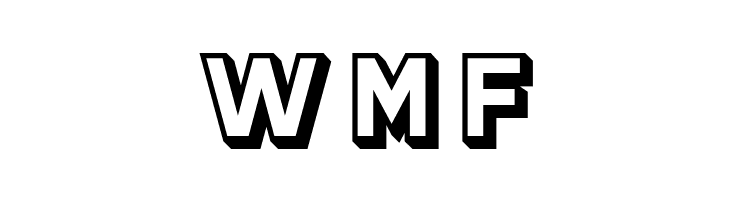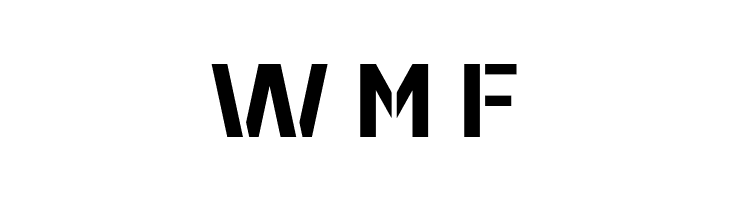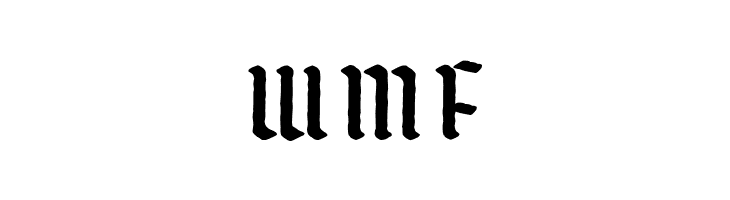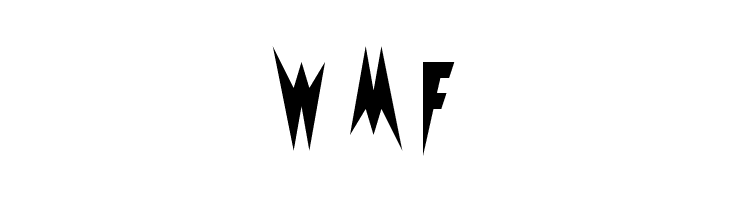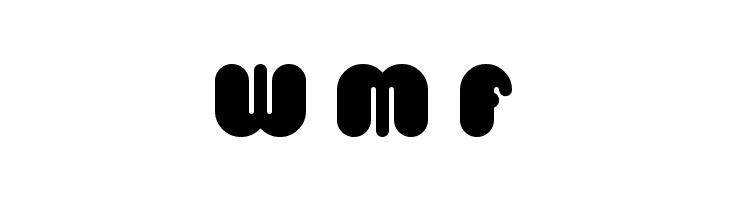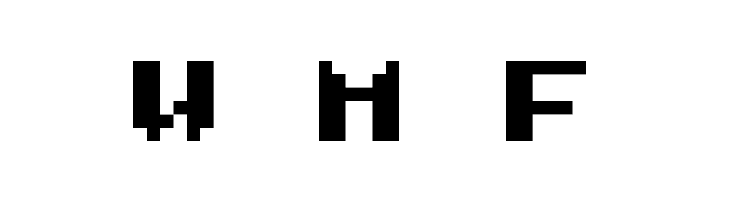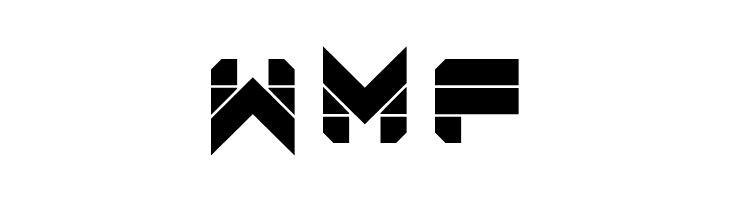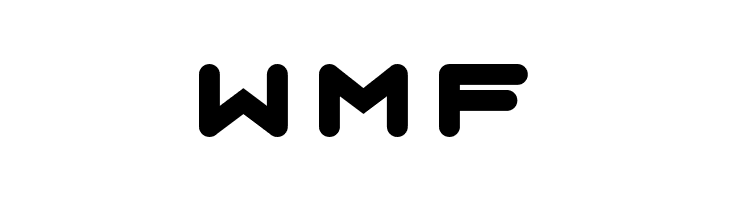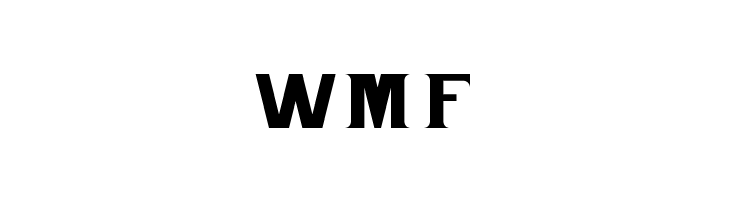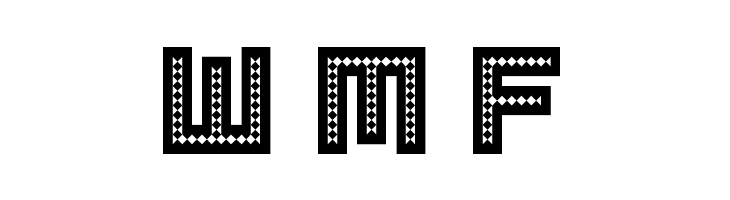
A geometric, pixelated font with a digital, futuristic style.
A bold, geometric font with sharp angles and a modern aesthetic.
A bold, geometric font with a futuristic and industrial design.
A bold, geometric stencil font with a modern industrial style.
A bold blackletter font with sharp, angular lines and a gothic style.
A bold, rugged font with a distressed, industrial look.
A bold, geometric font with an industrial, stencil-like design.
A playful, handwritten font with rounded, consistent strokes and a casual feel.
A playful and whimsical font with curly, flowing letterforms.
A bold, shadowed sans-serif font with a modern, geometric style.
A bold, angular font with sharp edges and a dynamic, stylized appearance.
A bold, rounded, and modern font with a playful geometric style.
A bold, playful font with rounded, bubble-like characters.
A bold, modern sans-serif font with geometric lines and uniform width.
A bold, distressed font with a grunge effect and rugged appearance.
A modern, geometric font with clean lines and uniform stroke widths.
A bold, dynamic handwritten font with textured strokes and energetic flow.
A futuristic, bold font with rounded edges and a geometric style.
A bold, angular font with a strong, cohesive design.
A playful, rounded font with a hand-drawn, whimsical style.
A bold, geometric font with a futuristic and industrial design.
A bold, angular font with a playful and dynamic style.
A futuristic geometric font with clean lines and a modern aesthetic.